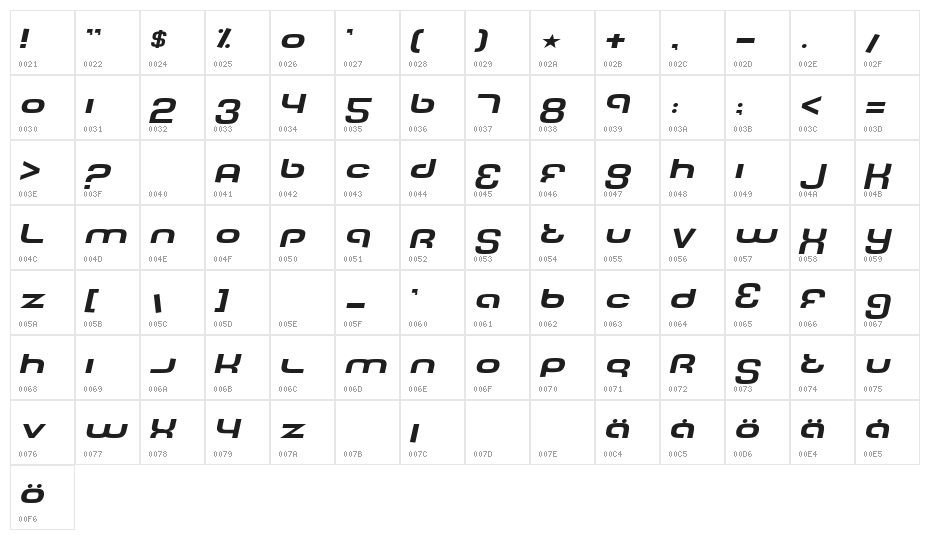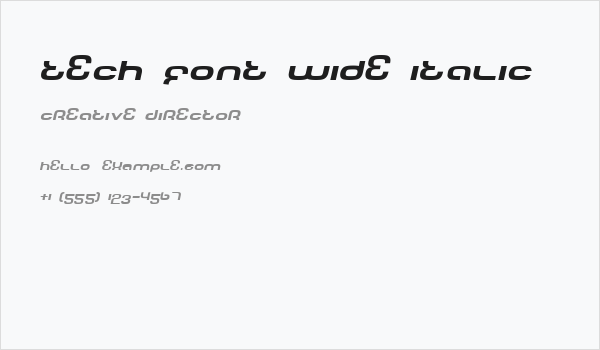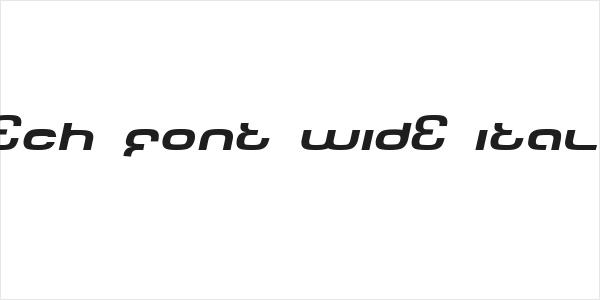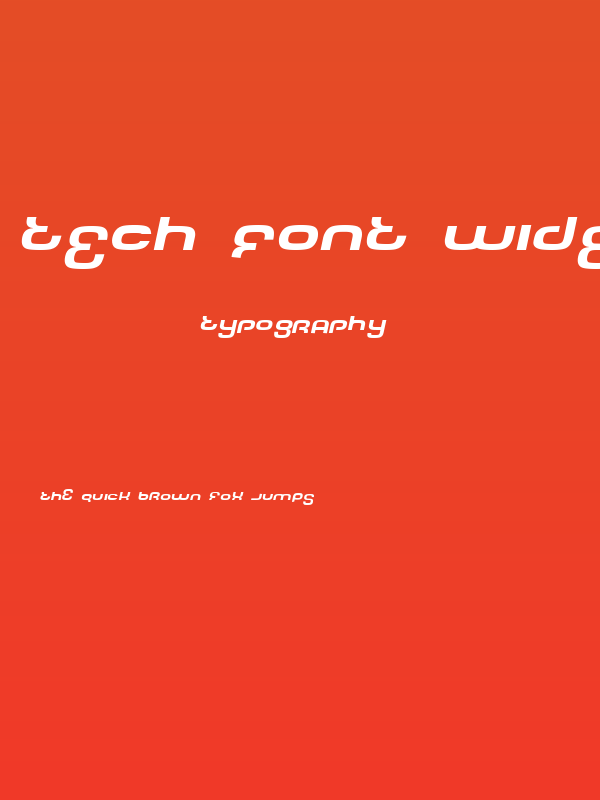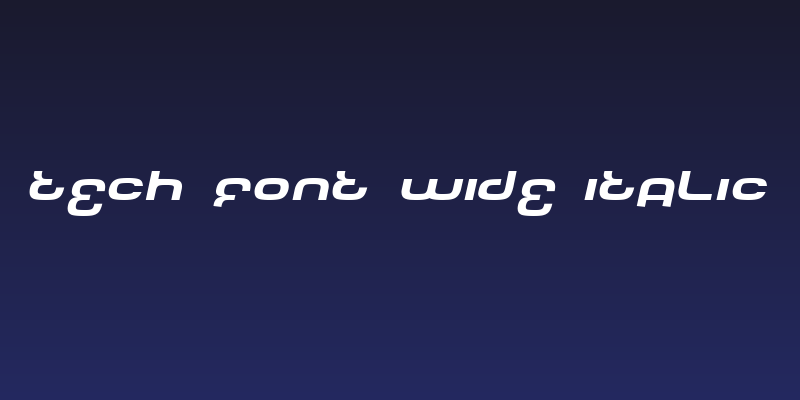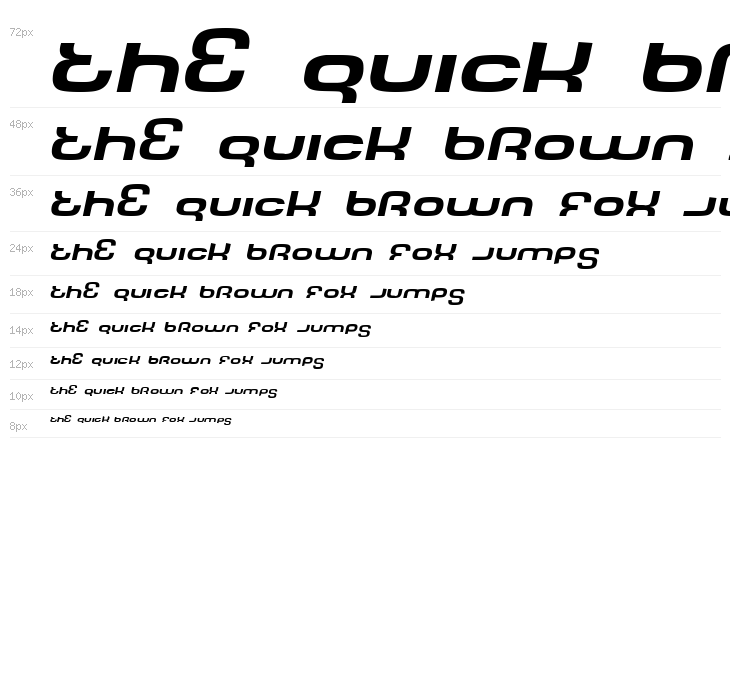
Tech Font Wide Italic Font
Tech Font Wide Italic Description
This font features a modern, futuristic design with a wide stance and italicized characters. The letters are sleek and streamlined, giving a sense of motion and speed. The rounded edges and smooth curves add a touch of softness to the otherwise bold and assertive appearance. The numbers and special characters maintain the same stylistic elements, ensuring consistency throughout. This font is ideal for projects that require a contemporary and tech-savvy look.
| Use Case | Headlines, Logos, Digital Interfaces |
| Proposed Projects | Ideal for tech branding, digital interfaces, futuristic posters, and innovative product packaging. |